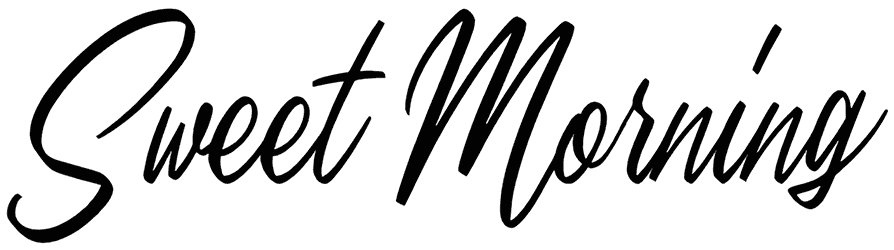
Sweet Morning Font
The Sweet Morning font brings joy and happiness to your simple designs. Of course, this combination may sometimes affect the readability of your text, but don’t worry because it can be the most wonderful design for wedding and birthday invitation cards.
There’s no end to the fun you’ll have with this script font! This is one of the most fashionable and best-handwritten fonts for contemporary creations.